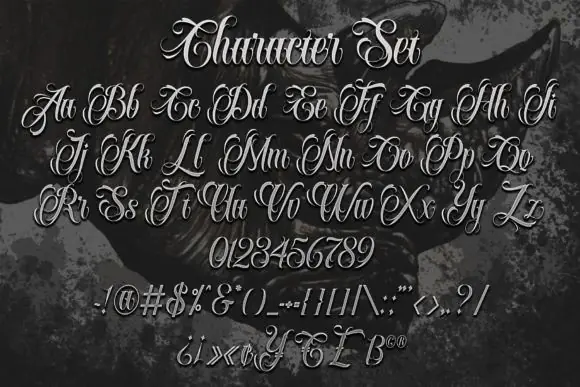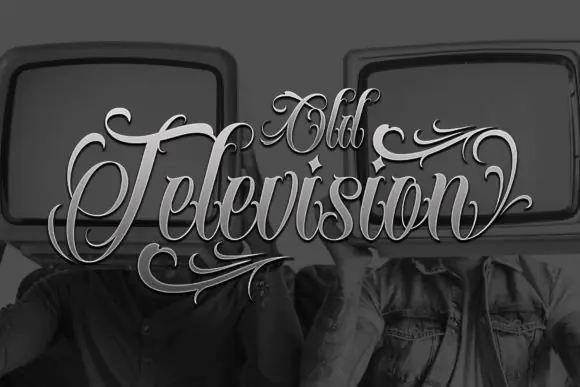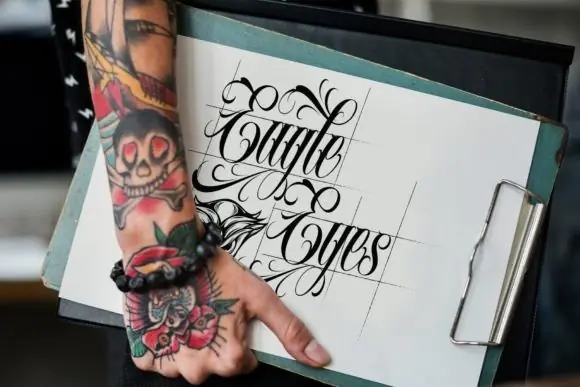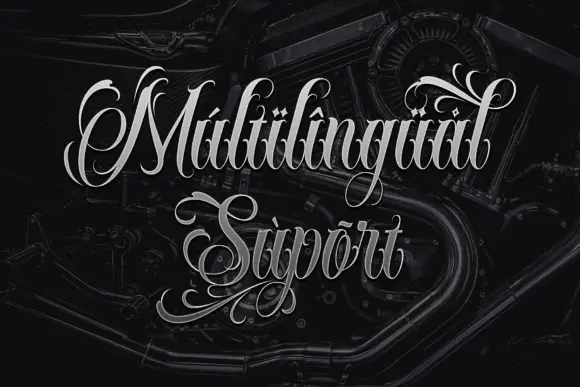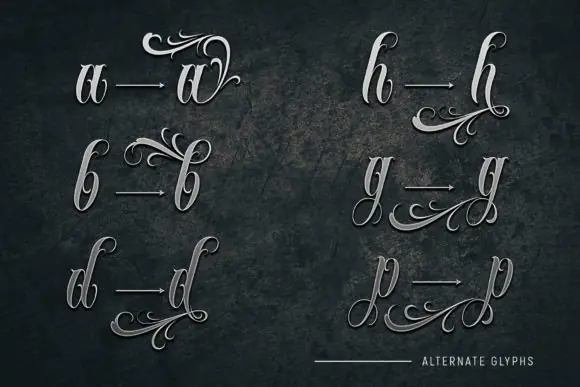
Black Ink Font | Contemporary Blackletter Tattoo Font for Logos, T-Shirts, Posters, Flyers, Brand Identity & Bold Gothic Designs
Create bold, stylish, and professional designs with Black Ink Font, a contemporary blackletter tattoo font made for artwork that needs a strong gothic, edgy, and modern tattoo-inspired look.
Black Ink Font works perfectly for logos, t-shirt designs, posters, flyers, brand identity items, apparel graphics, hoodie prints, stickers, labels, product packaging, album covers, barbershop branding, motorcycle-themed designs, streetwear artwork, wall art, social media graphics, and bold promotional materials.
Its contemporary blackletter style gives your typography a confident and powerful appearance while still feeling polished enough for modern branding. Whether you are creating tattoo-style artwork, clothing graphics, music-inspired visuals, or a strong business identity, this font helps your design stand out with attitude and character.
• Tattoo-style designs
• Logos and brand identity
• T-shirt and hoodie designs
• Posters and flyers
• Streetwear apparel
• Stickers and labels
• Product packaging
• Album covers
• Barbershop branding
• Motorcycle-themed graphics
• Printable wall art
• Gothic quote designs
• Bold display typography
• Contemporary blackletter tattoo style
• Bold gothic-inspired appearance
• Great for logos, t-shirts, posters, and flyers
• Perfect for brand identity items
• Strong visual impact for apparel and promotional designs
• Suitable for both digital and print projects
• Adds edgy, confident personality to creative work
Black Ink Font is a strong choice for designers, tattoo artists, apparel sellers, crafters, and digital product creators who want to create memorable gothic, tattoo, and streetwear-inspired designs with a modern blackletter look.